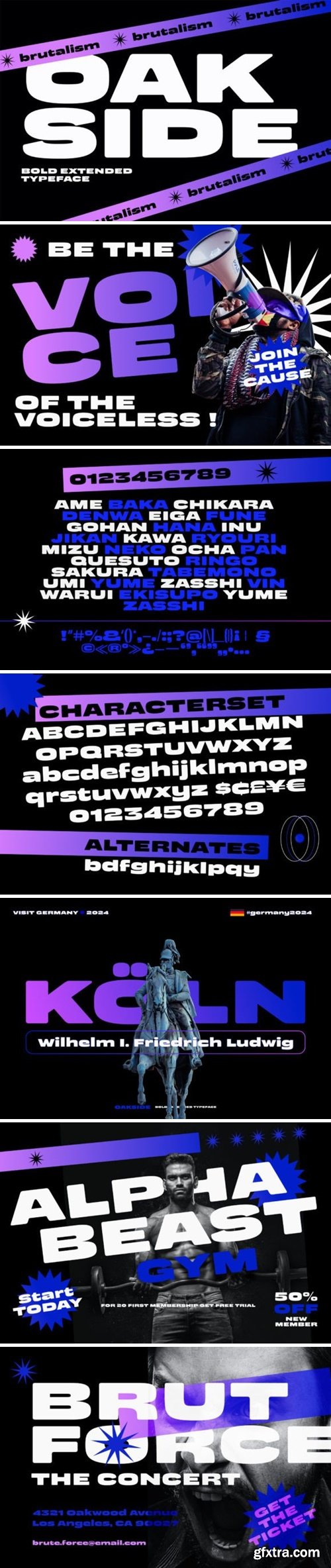
奥克西de Font
Introducing Oakside – Bold Extended Typeface The epitome of modern elegance and versatility in typography. This extraordinary font is designed to captivate and inspire, making it a must-have addition to any designer’s toolkit. Oakside boasts a unique blend of boldness and sophistication, making it the ideal choice for projects that demand attention and creativity. Its extended characters and bold strokes offer a strong and impactful presence, ensuring your designs stand out in any context. Don’t miss the opportunity to elevate your design projects with Oakside – the bold extended typeface that seamlessly combines modern flair with timeless appeal. Grab your copy today and make your creations truly unforgettable!